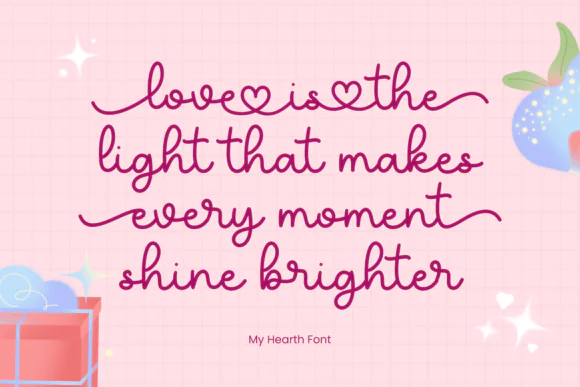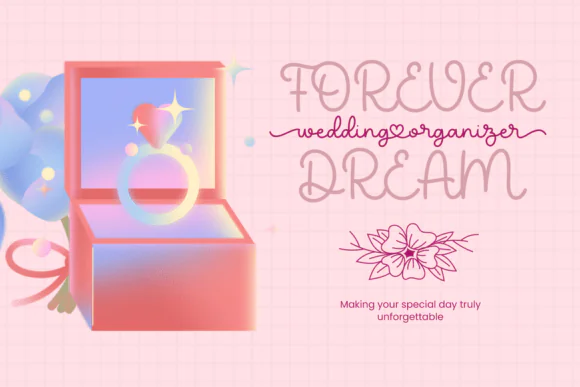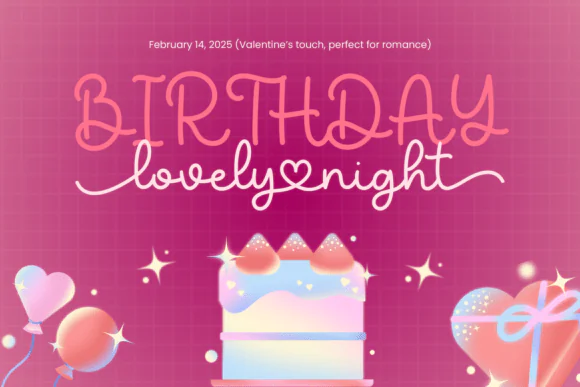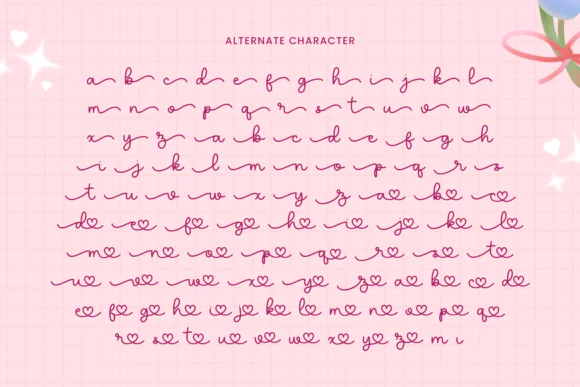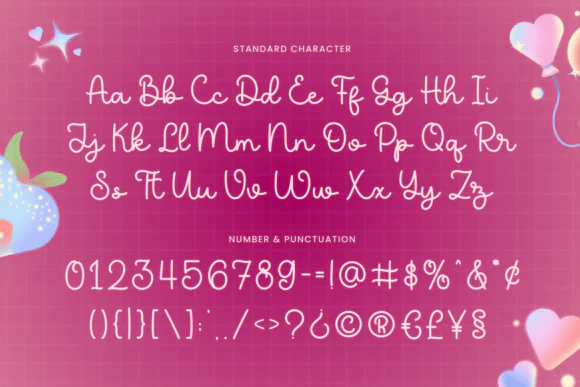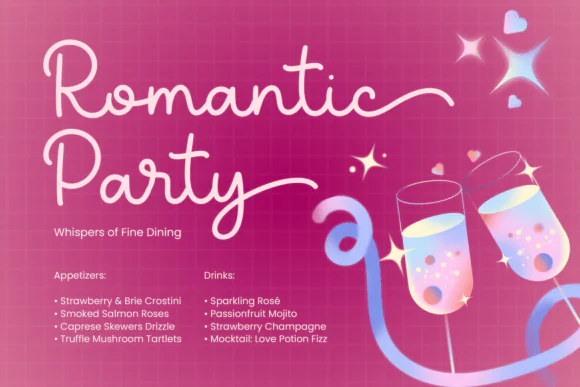
My Heart Font | Lovely Romantic Script Typeface with Swashes for Wedding Invitations, Valentine Cards, Love Letters, Logos, Quotes & Elegant Branding
Create soft, romantic, and heartfelt designs with My Heart Font, a lovely modern script typeface designed with beautiful handmade calligraphy style. With its smooth curves, decorative swashes, graceful strokes, and natural handwritten flow, this font brings warmth, emotion, and elegance to every creative project.
My Heart Font is perfect for designs that celebrate love, beauty, connection, and personal expression. Its romantic script style works beautifully for wedding invitations, Valentine’s Day cards, love letters, greeting cards, engagement announcements, anniversary designs, elegant logos, quote graphics, stationery, branding projects, product packaging, stickers, labels, and social media posts.
The font combines modern calligraphy with a handcrafted feel, giving your typography a trendy yet timeless appearance. Whether you are creating a romantic wedding design, a heartfelt quote, a feminine brand identity, or a beautiful love-themed printable, My Heart Font adds a graceful and emotional handwritten charm.
• Wedding invitations
• Valentine’s Day cards
• Love letters
• Romantic greeting cards
• Engagement announcements
• Anniversary designs
• Elegant logos
• Signature-style branding
• Love quote graphics
• Stationery designs
• Product packaging
• Stickers and labels
• Printable wall art
• Feminine boutique branding